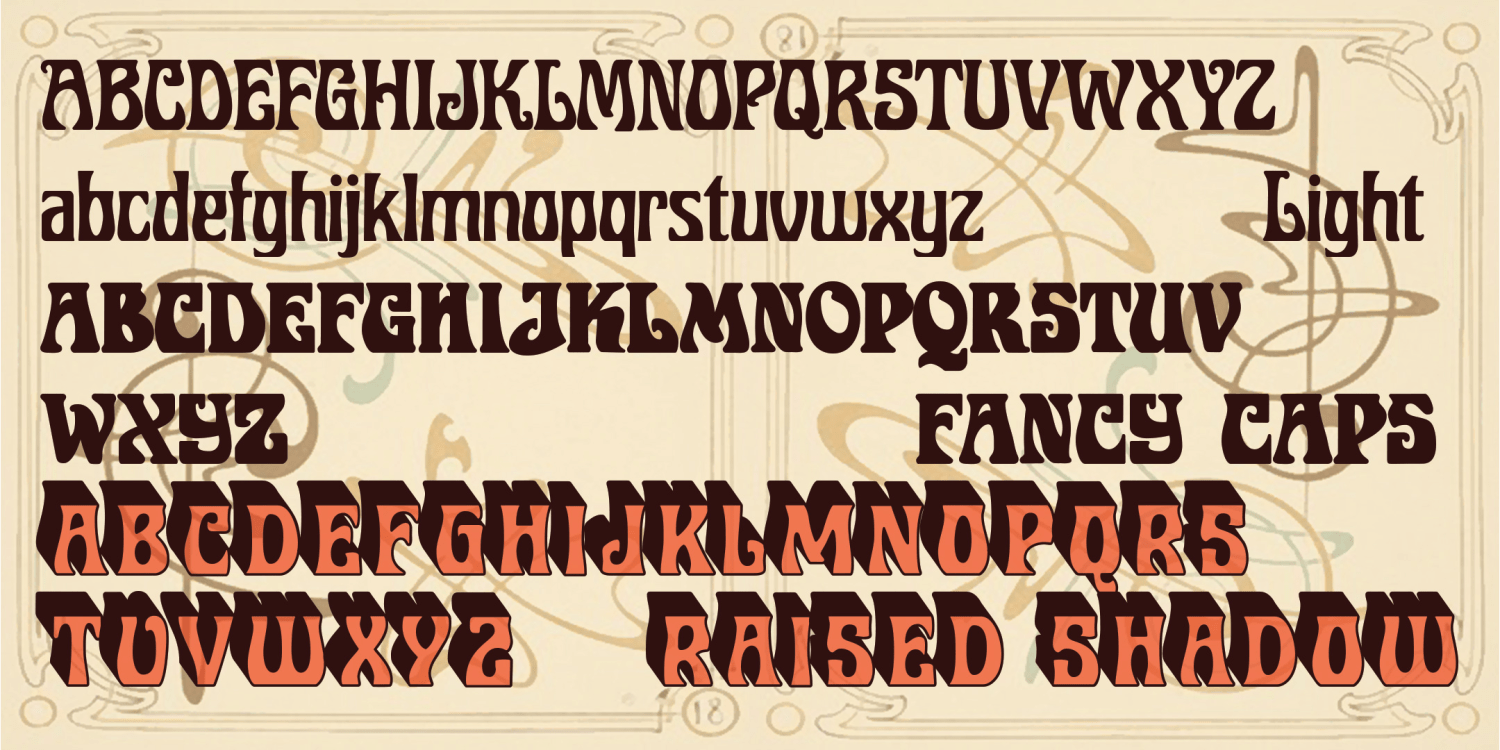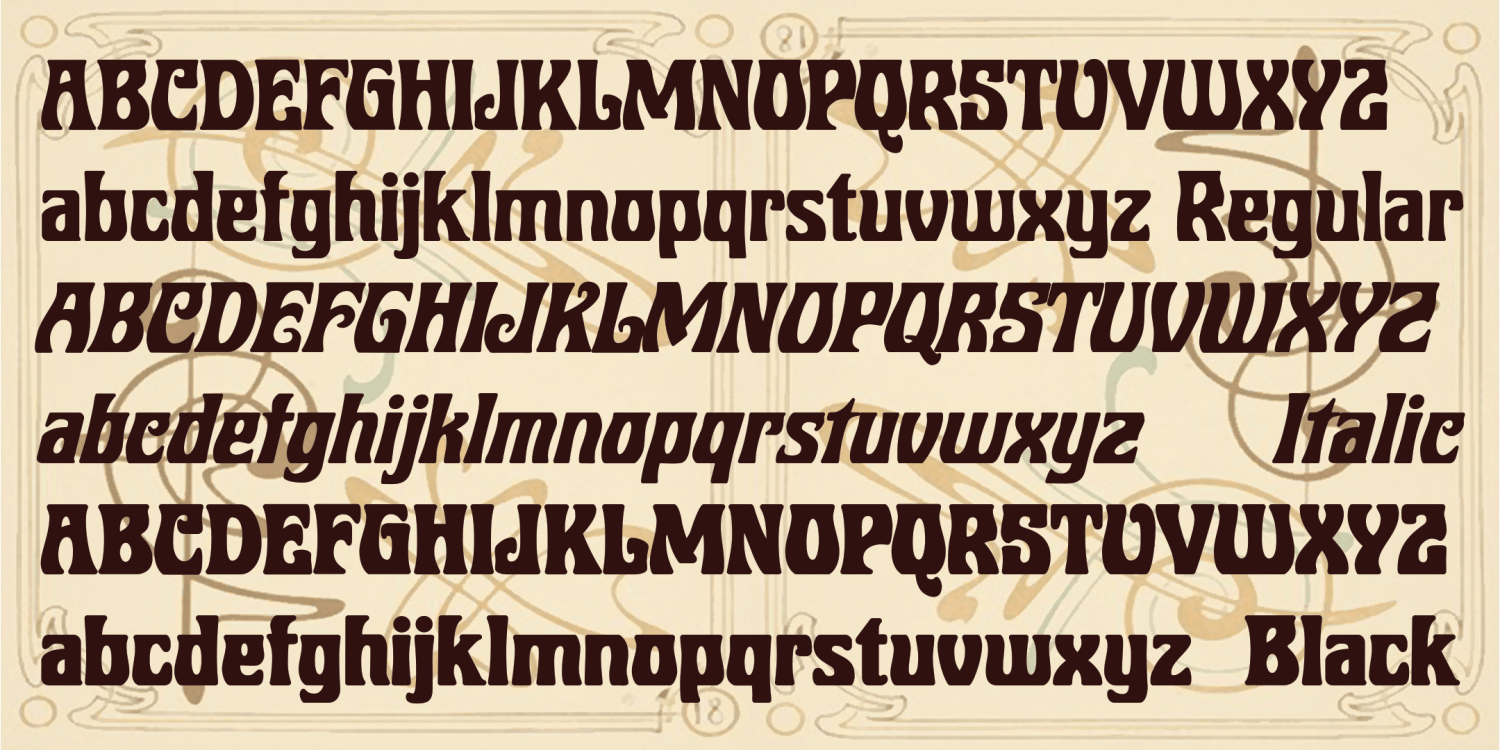
ROBERTA is a digital interpretation of Bob Trogman's delightful Art Nouveau analog original. This classic font suggests elegance and fun, exoticism and friendliness. Bob's story: "I originally hand cut this font in 1962. It is based on a…